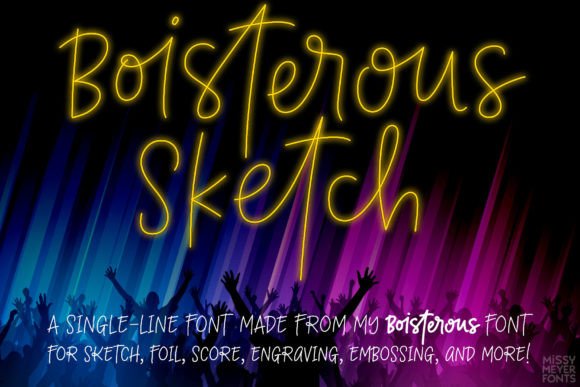
Introducing Boisterous Sketch, the perfect font for all your sketching, engraving, embossing, scoring, and other single-stylus needs! This script font family, created by GeekMissy, is a casual handwriting font with tons of ligatures for added variety. Boisterous Sketch is the single-line version of the popular Boisterous font and includes over 600 glyphs in total, with 300+ extended Latin characters and 140 alternates and ligatures for a true hand-written look!
It's important to note that single-line and hairline fonts aren't your ordinary fonts; they're designed specifically for use with a sketch pen, foil quill, engraving tool, infusible ink pen, Glowforge scoring, or any other stylus or nib that draws letters with a single line instead of an outline. This font comes in both a single-line version and a hairline version, and different software programs will use different formats. While known issues with Brother Canvas Workspace may prevent the use of single-line fonts, we provide a PDF guide to single-line fonts to help you select the right font and use it in specific programs.
Boisterous Sketch is more than just a font; it's a creative tool that can bring your designs to life. With its casual, hand-written style and variety of glyphs and ligatures, it's perfect for adding a personal touch to your projects. Whether you're a professional designer or a hobbyist, Boisterous Sketch is the perfect addition to your font library.